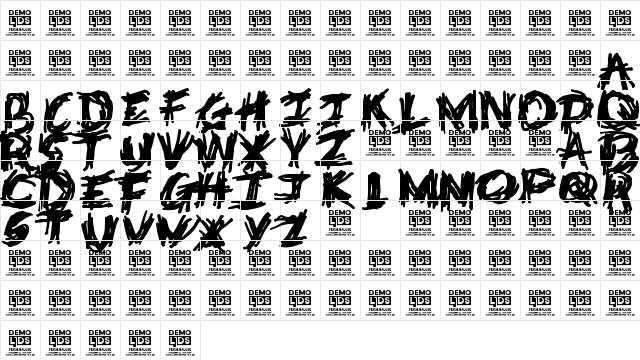
Deathtrap DEMO Regular
Design Context for Deathtrap DEMO Typeface
Deathtrap DEMO carries an unsettling edge — its distorted letterforms are built to unsettle, perfectly suited to horror, Halloween, and dark creative work.
Perfect for anything that needs to unsettle — game titles, horror branding, and macabre invitations.
Font Pairing: Pair with a clean neutral sans-serif for body copy to let Deathtrap DEMO's character lead without overwhelming the composition.
Pro Tip: Use Deathtrap DEMO at larger display sizes for maximum impact. Consider generous tracking to let the disturbing character of each letterform breathe.